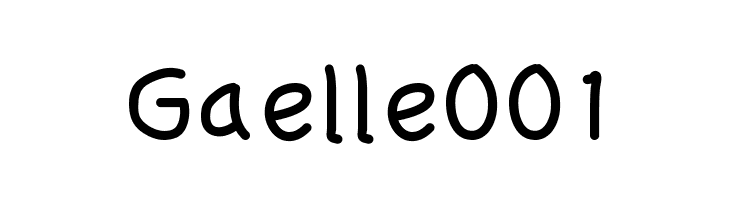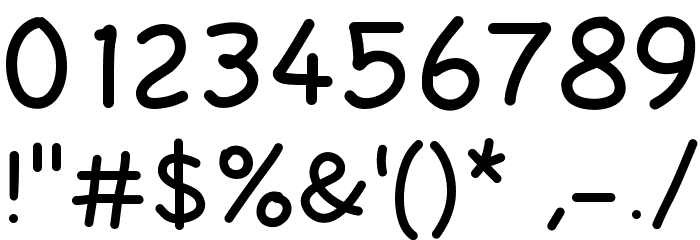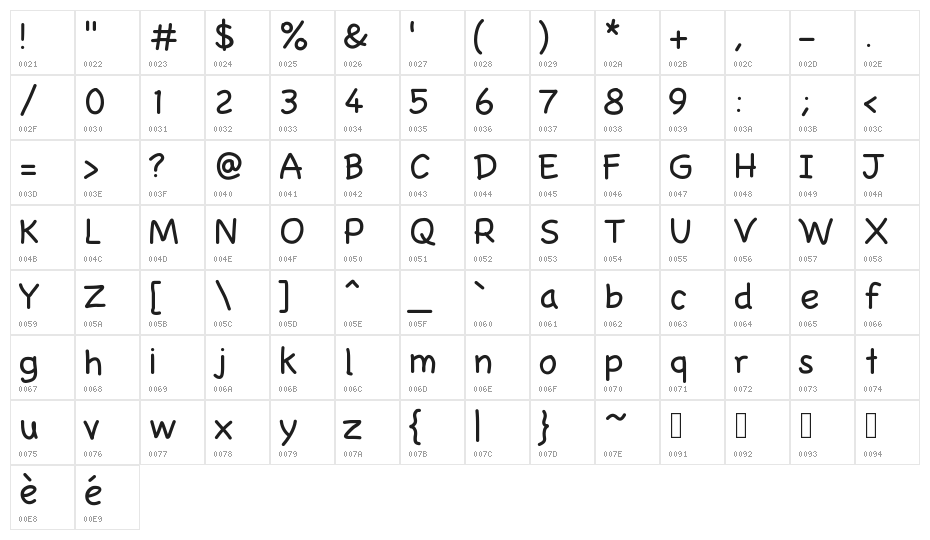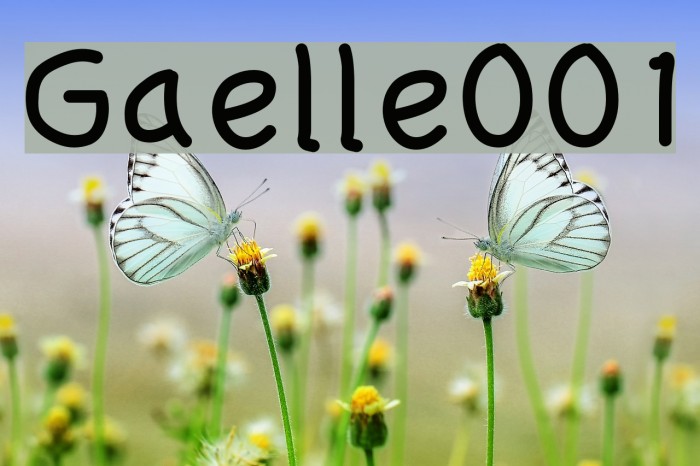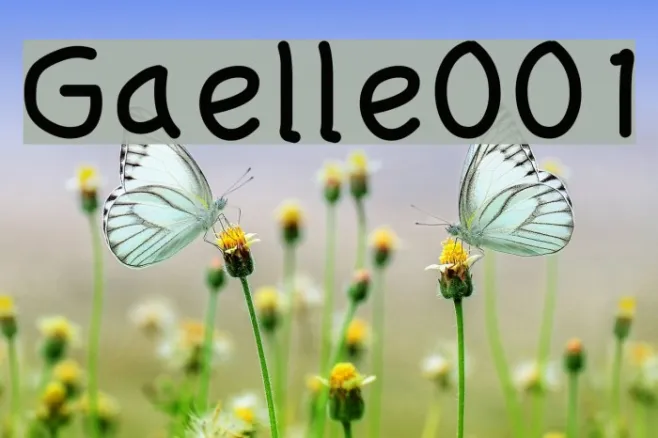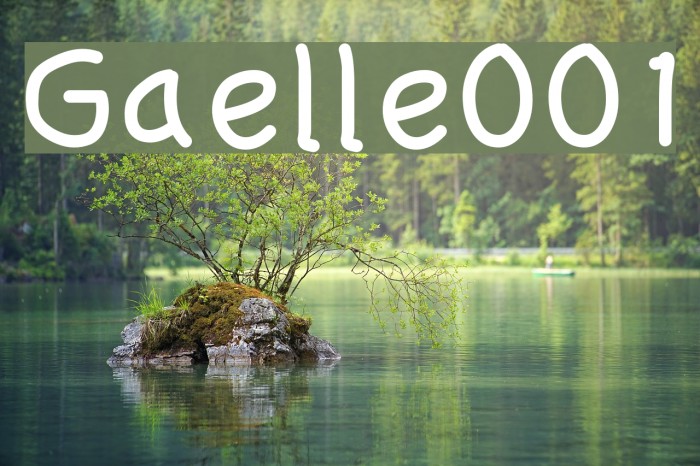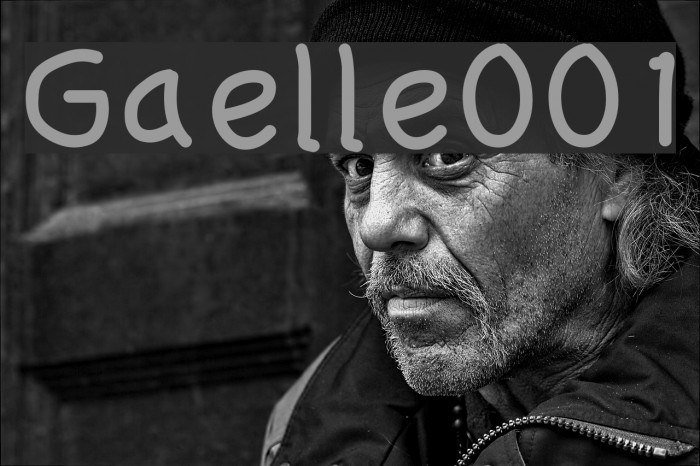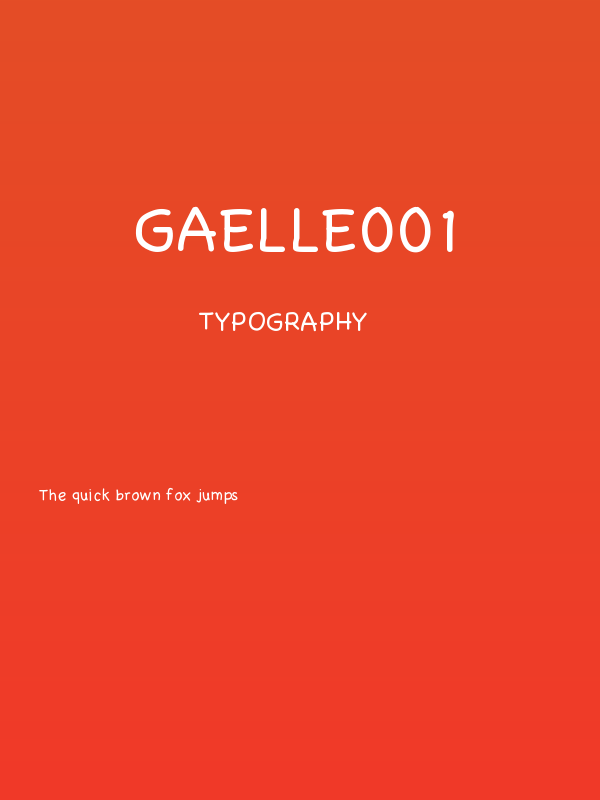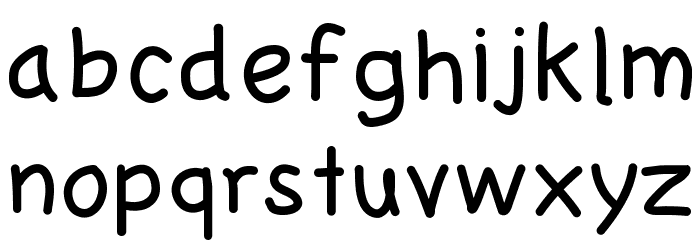
Gaelle001 Font
Gaelle001 Description
This font features a playful and casual handwritten style, characterized by rounded edges and a friendly appearance. The letters are slightly irregular, adding to the informal and approachable feel. The uppercase and lowercase letters maintain a consistent style, with a moderate x-height and open counters that enhance readability. The numerals are clear and distinct, matching the overall aesthetic of the alphabet. Special characters are well-integrated, maintaining the same playful and rounded design. This font is versatile, suitable for projects that require a personal touch or a relaxed vibe.
| Use Case | Headlines, Informal text, Branding |
| Proposed Projects | Ideal for children's books, greeting cards, casual branding, and social media graphics. |